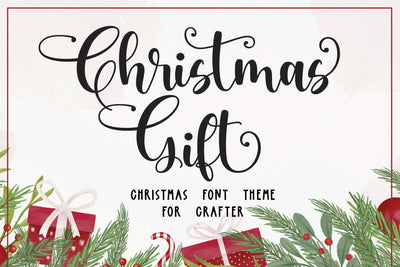
Christmas Gift
Christmas Gift is a script handwritten font.
It is a quirky and natural hand-drawn font.
It is a holiday and Christmas theme font.
Together or apart, these fonts are ideal for adding a chic and cheery touch to your crafts.
This font is ideal for crafting, branding, and decorates your any project. These fonts are perfect for wedding invitations or your blog.
Fall in love with its incredibly versatile style and use it to create spectacular designs!
Use this font for any crafting project that requires a personalized look!
Masterfully designed to become a true favorite, this font has the potential to bring each of your creative ideas to the highest level!